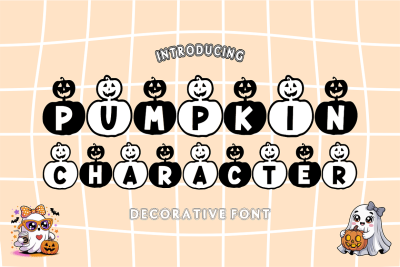
Pumpkin Character - Decorative Font
Designers reaching for Pumpkin Character - Decorative find a typeface that holds up across diverse media — print, web, and motion.
Its proportions suit a wide range of uses: website headers, printed flyers, restaurant menus, annual reports, and product packaging.